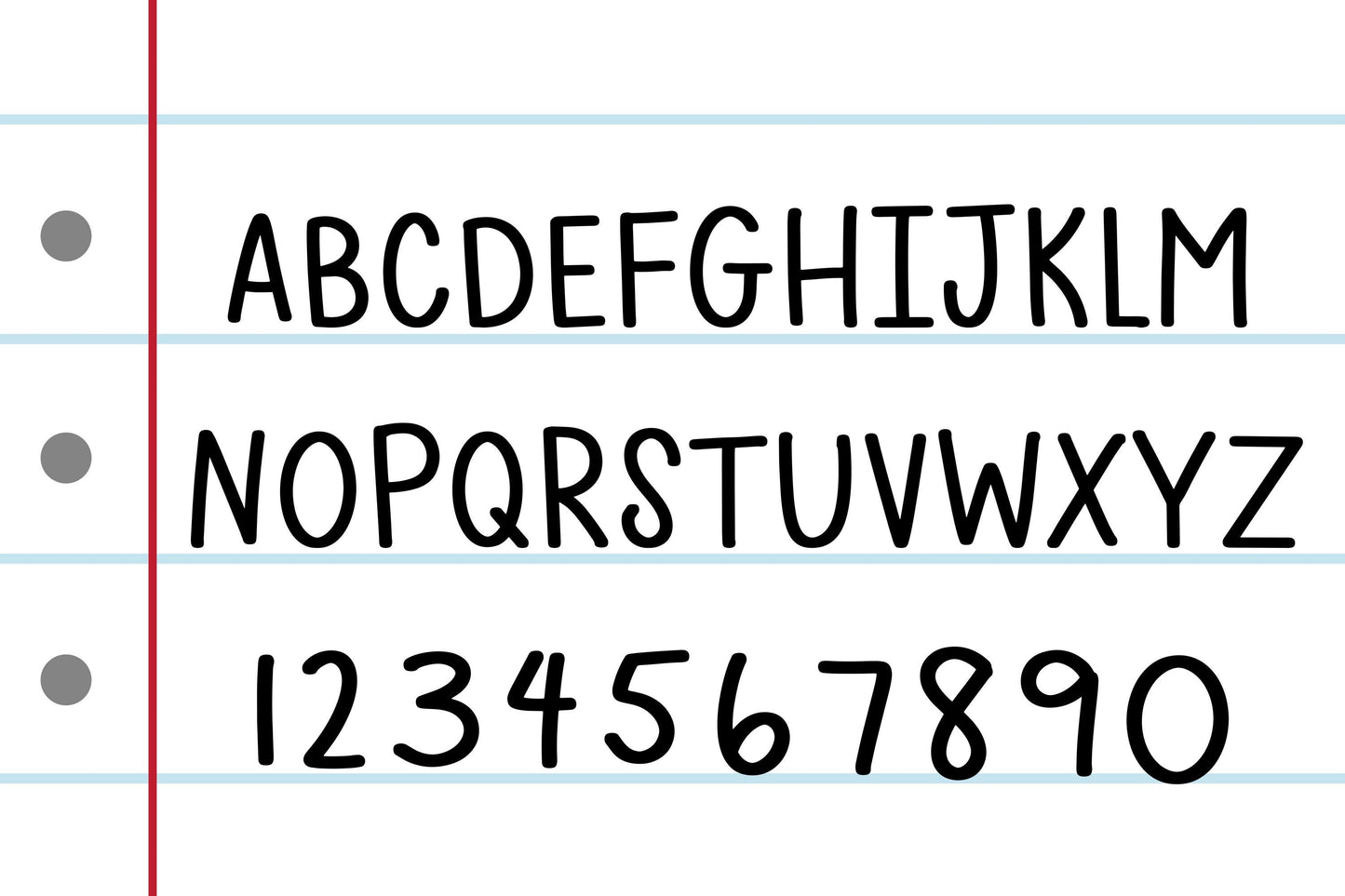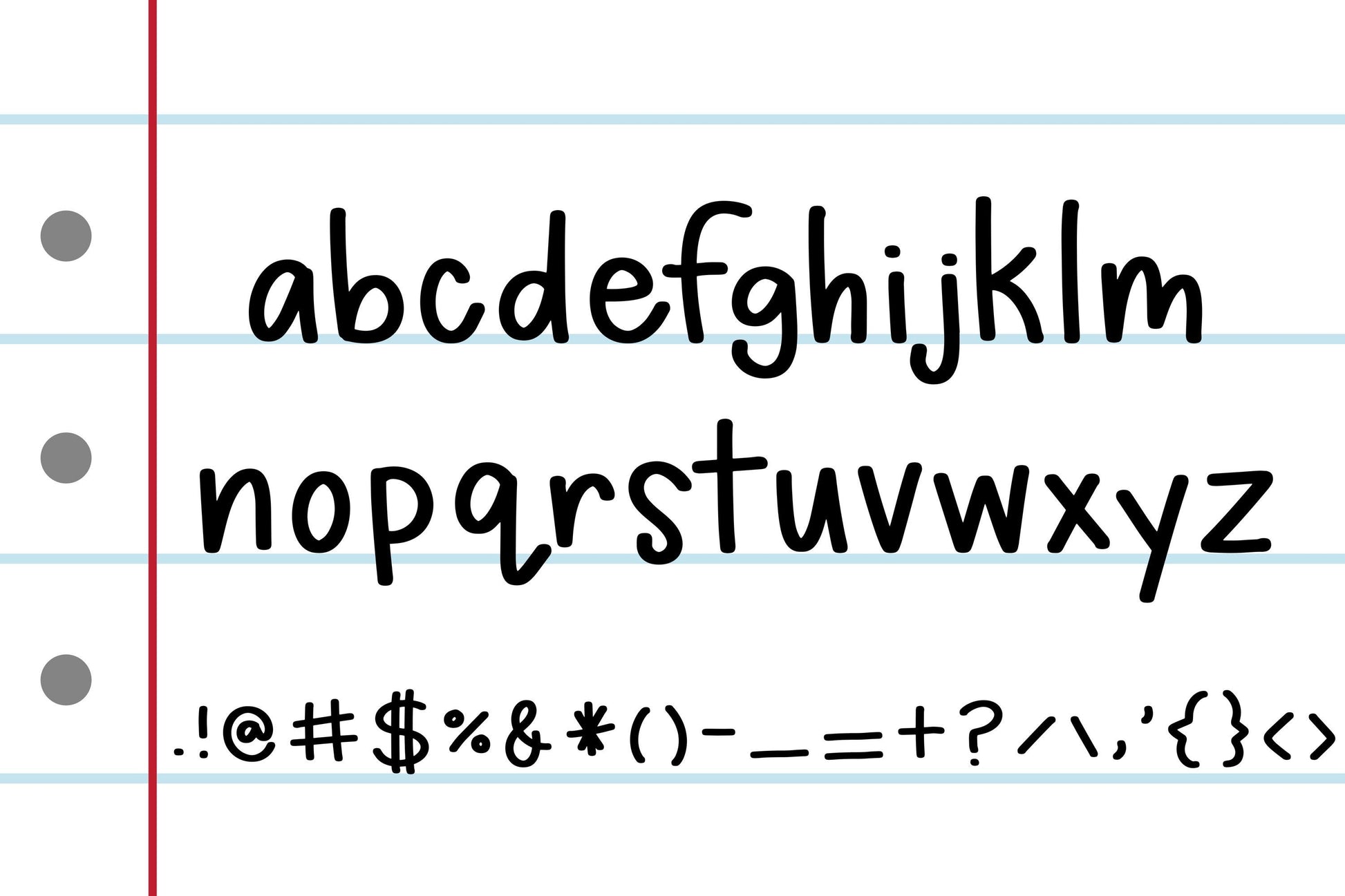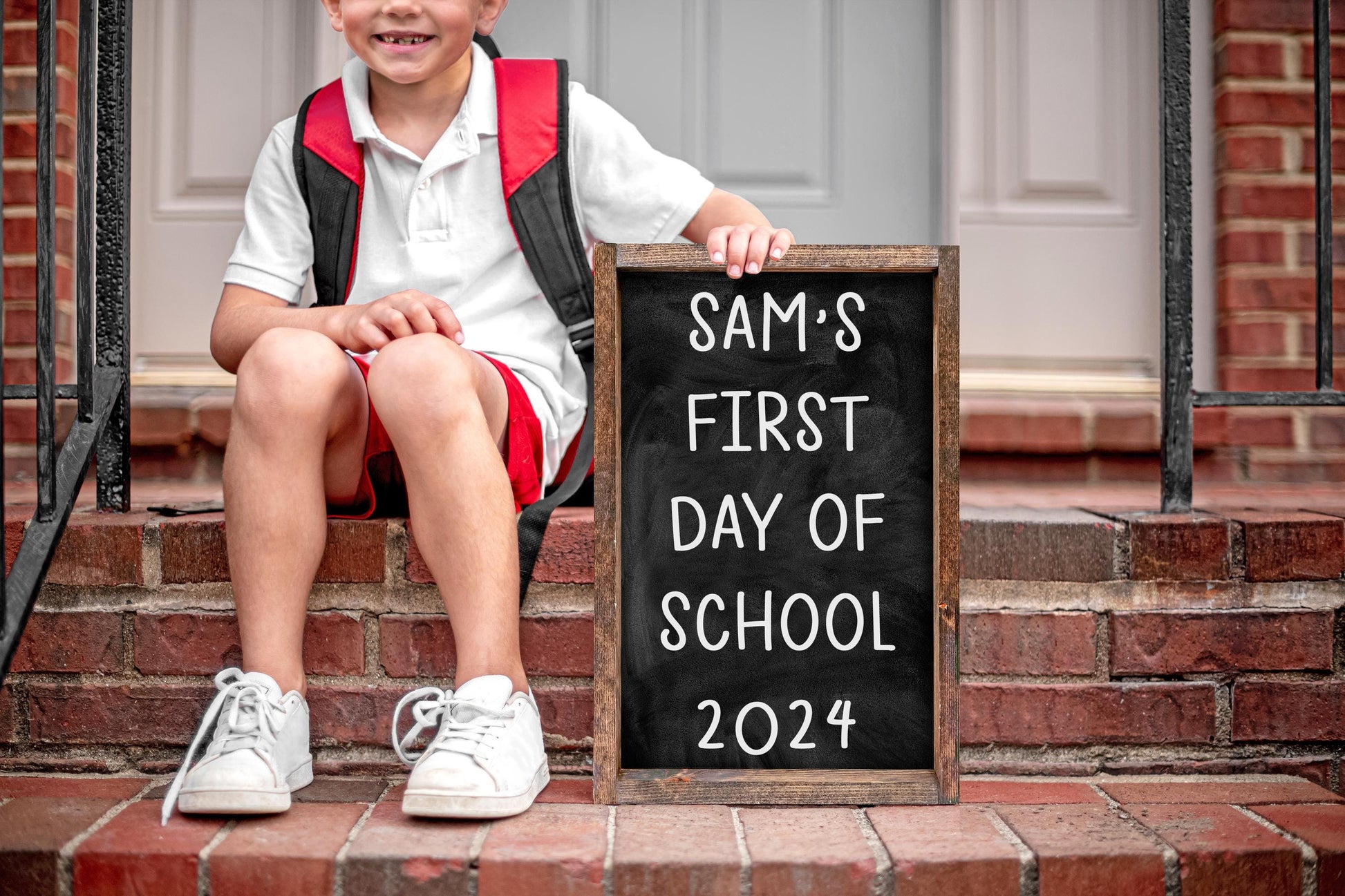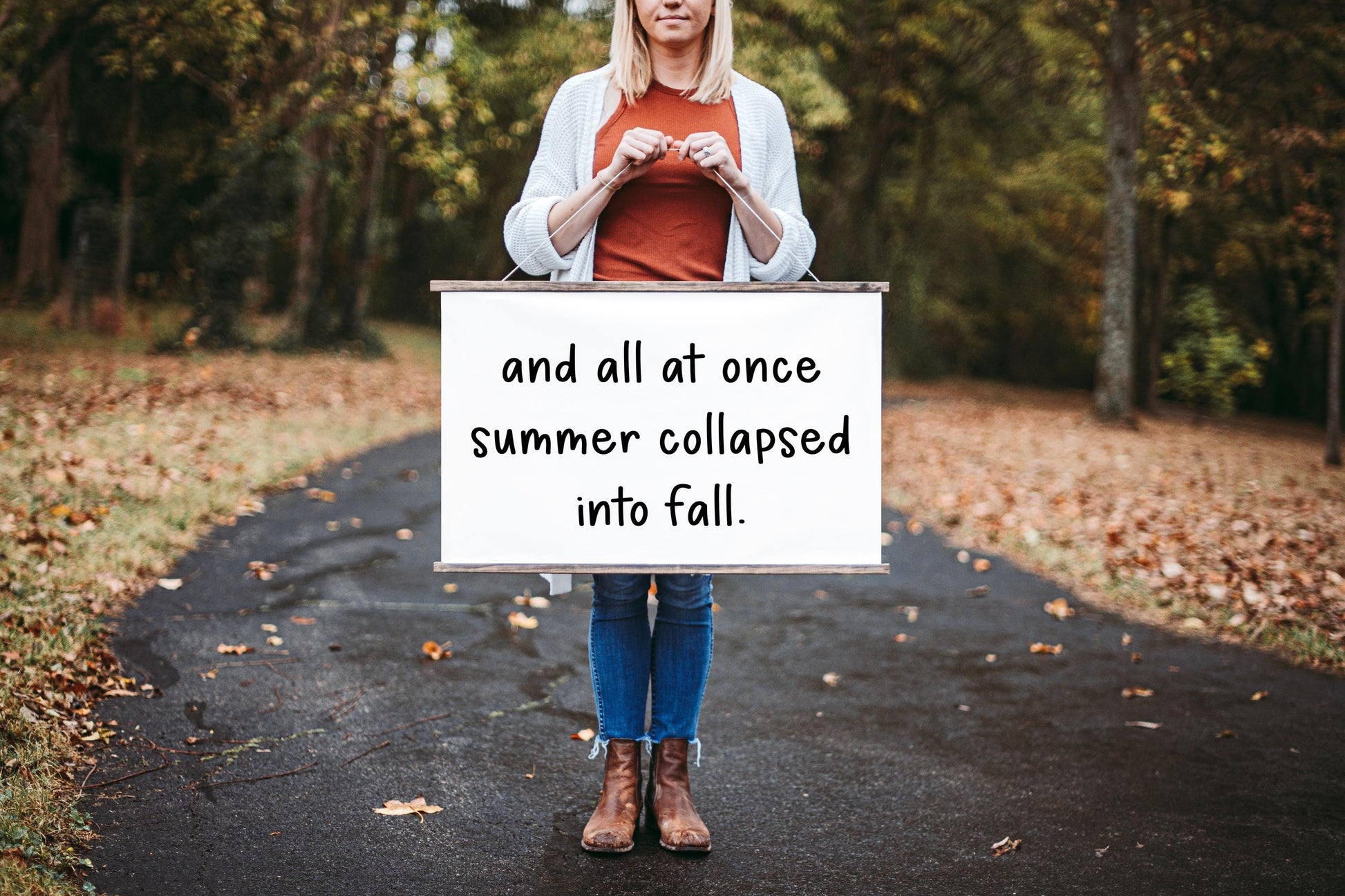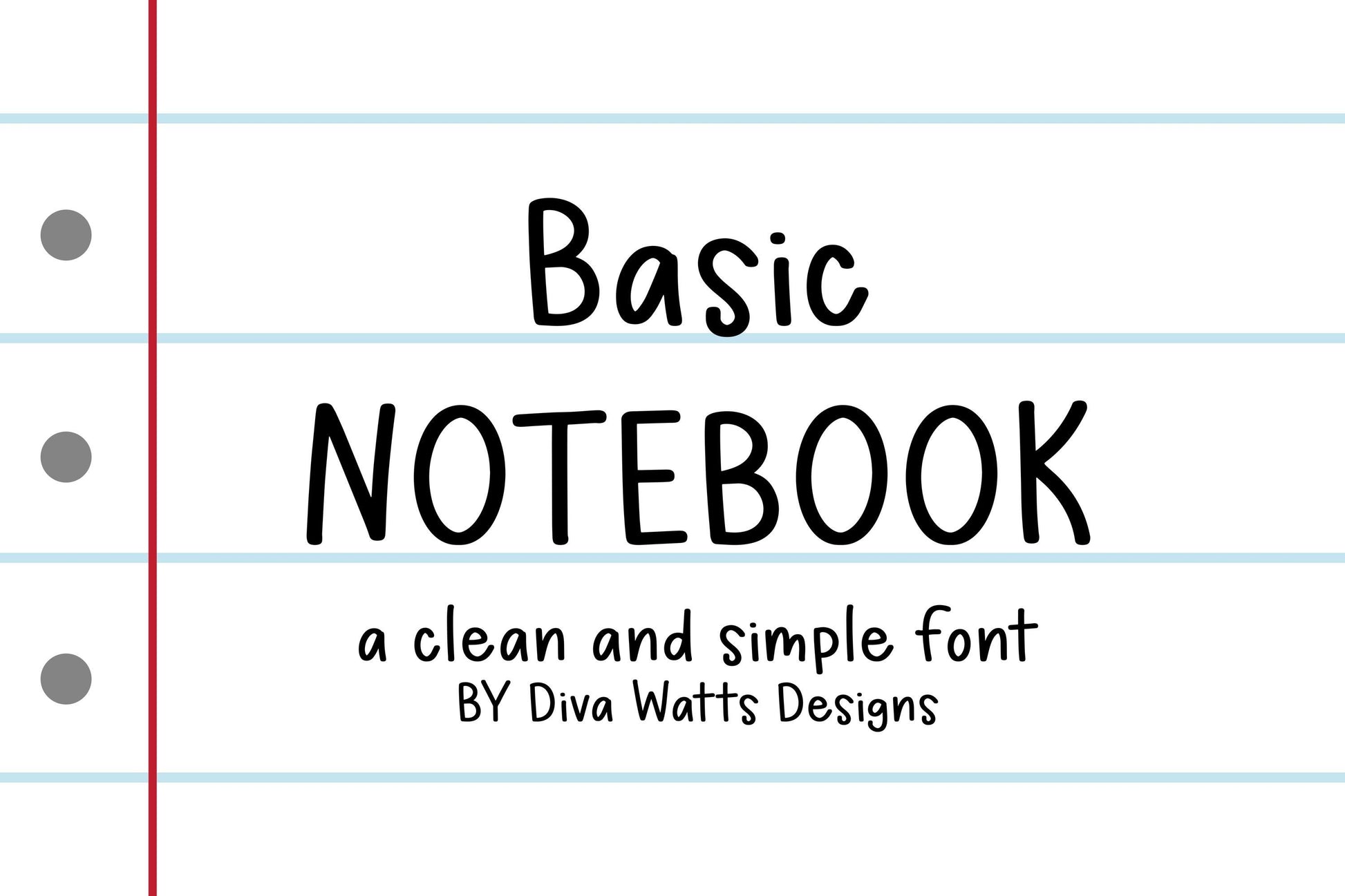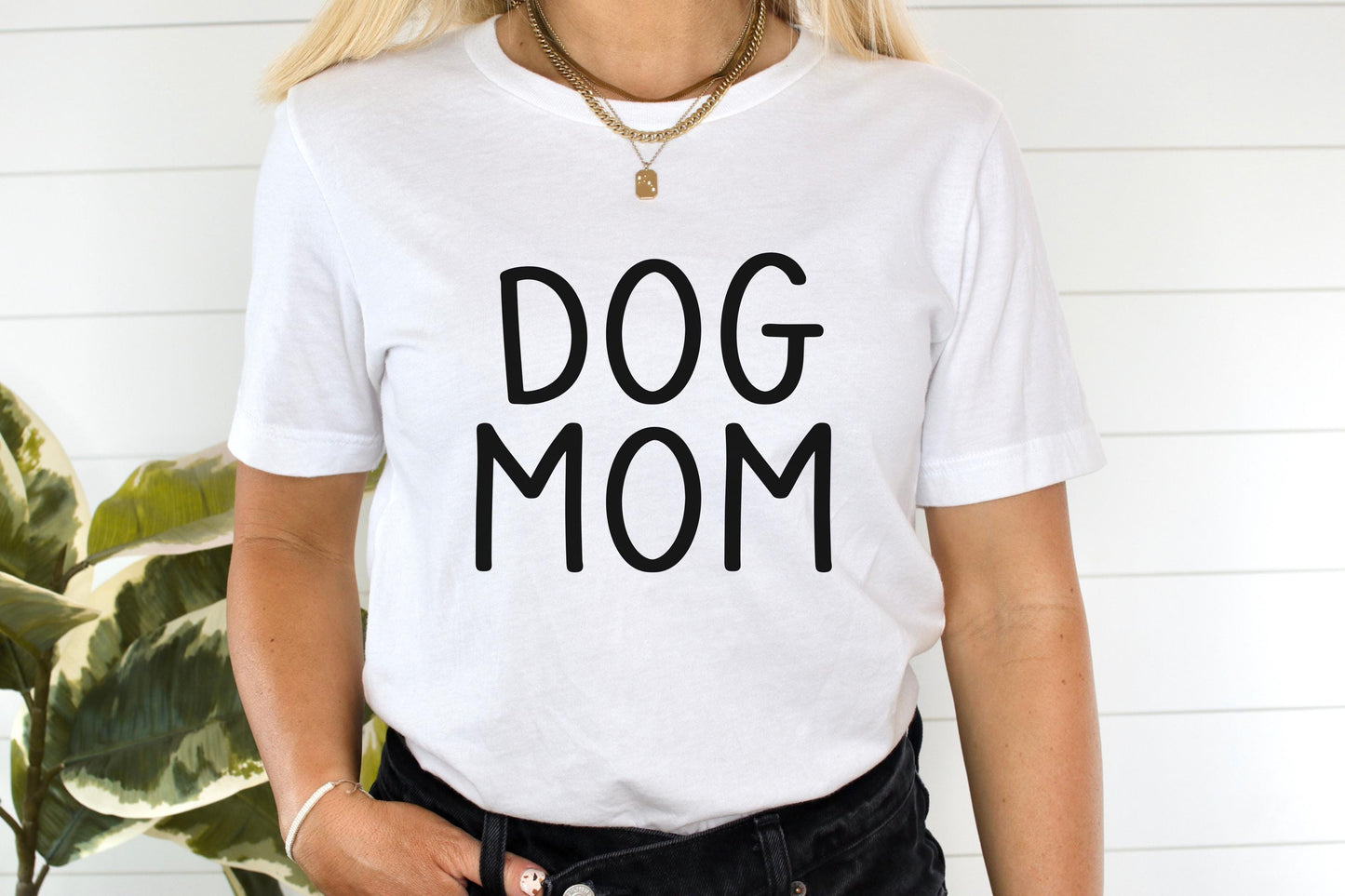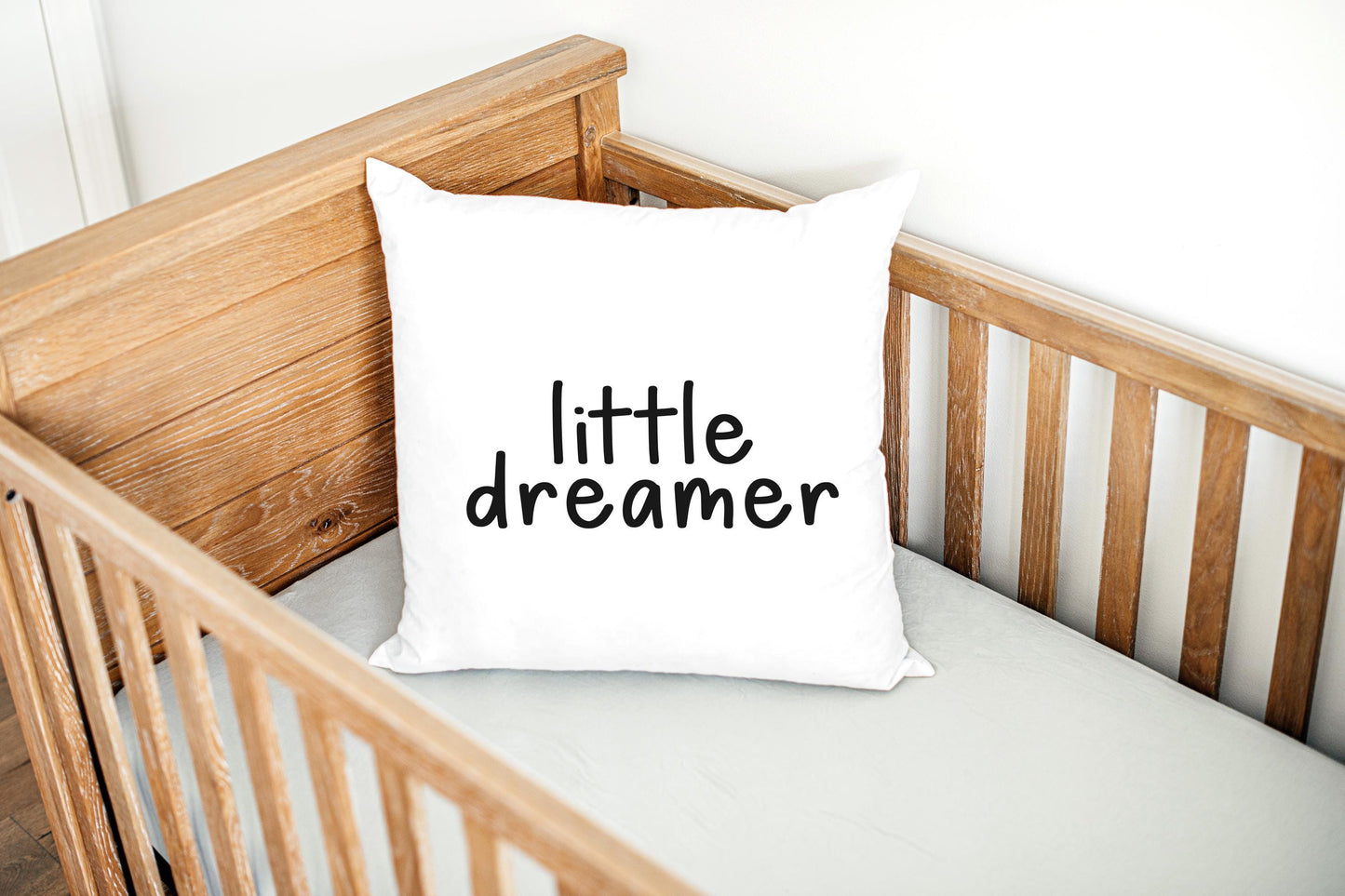
Introducing Basic Notebook, a super clean and simple font that’s perfect for pairing with bolder fonts or scripts. With its minimalist design, Basic Notebook offers excellent readability, making it versatile for a wide range of projects. This font includes uppercase, lowercase, numbers, and punctuation, giving you everything you need for your creative endeavors. Whether you're working on invitations, posters, digital designs, or any other project, Basic Notebook provides a straightforward, modern touch that complements more intricate fonts beautifully. Elevate your designs with this easy-to-use, stylish font!